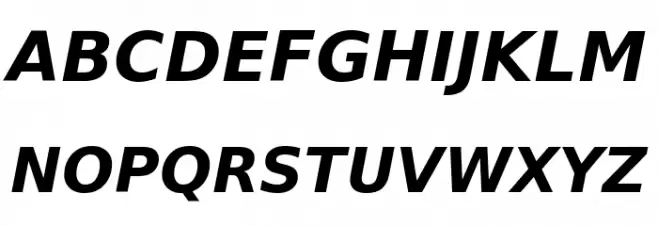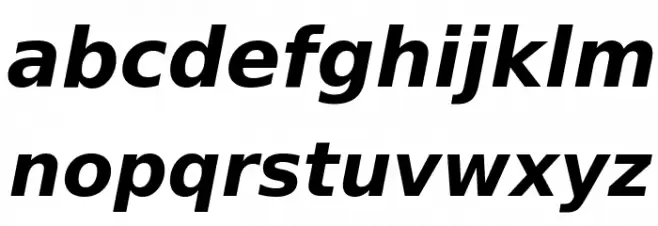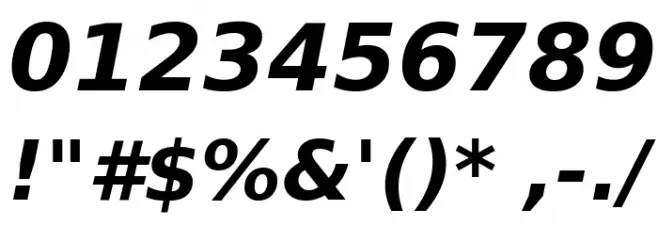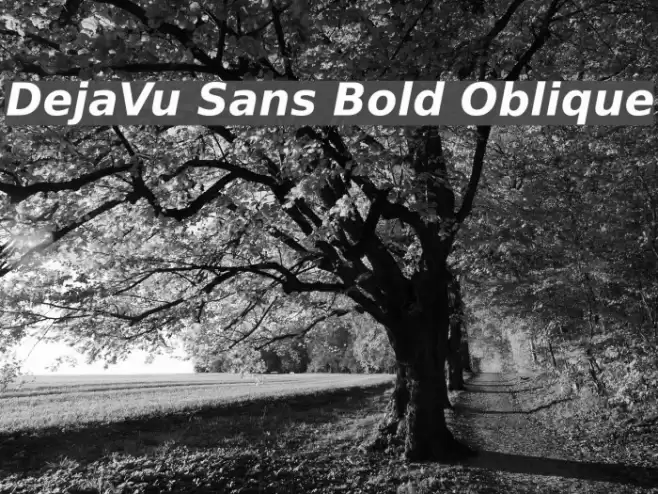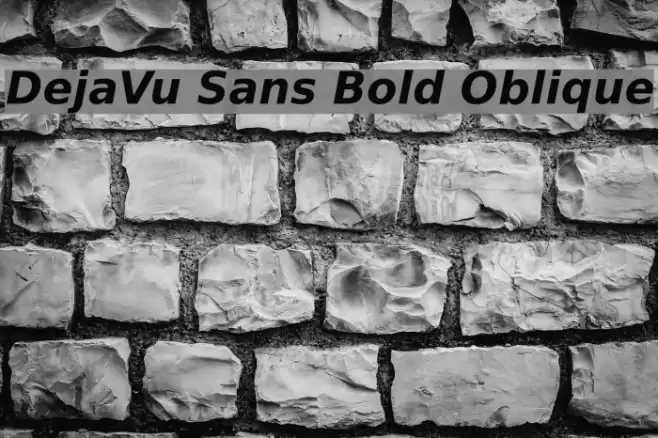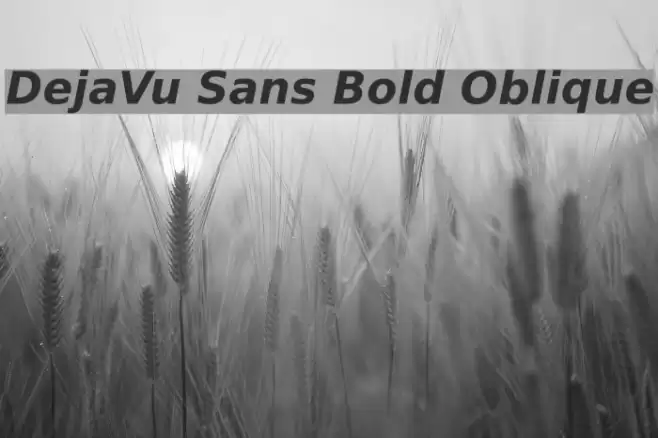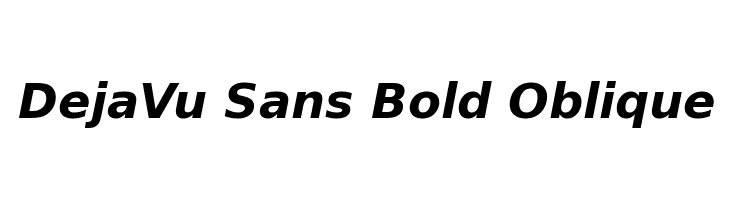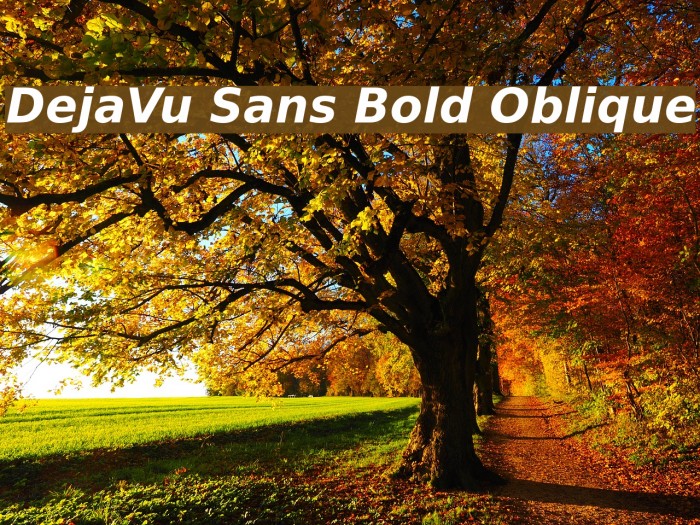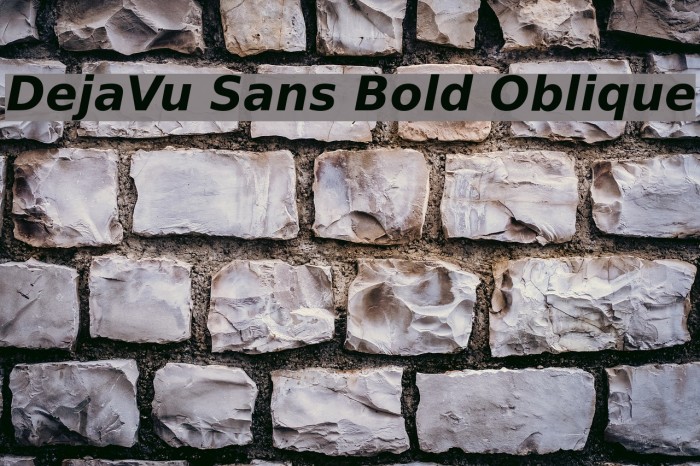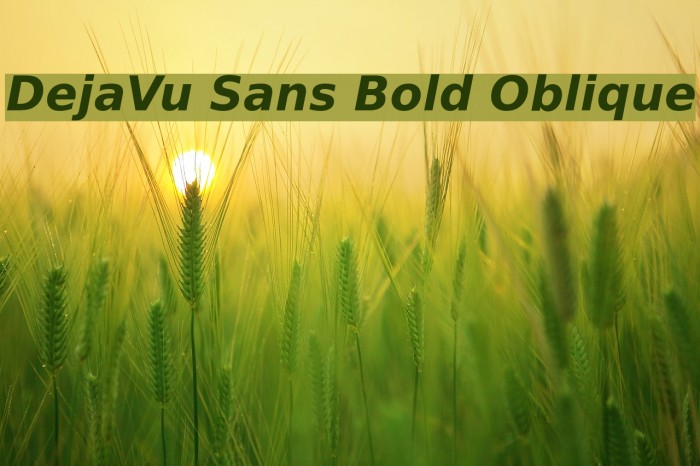
DejaVu Sans Bold Oblique
This font exhibits a bold and oblique style, characterized by its strong, thick strokes and a noticeable slant to the right. The uppercase and lowercase letters are well-proportioned, with a modern sans-serif design that ensures readability and clarity. The numerals are consistent in weight and style with the alphabet, maintaining a cohesive appearance throughout. Special characters are distinct and easily recognizable, adding versatility to the font's use. The overall design is clean and contemporary, making it suitable for a wide range of applications.
A bold, oblique sans-serif font with a modern and clean design.
- Proposed Projects: Ideal for branding, advertising, headlines, and digital content where a strong and modern appearance is desired.
- Use Case: Headlines, Logos, Digital content